Embossing with Contrast and Layering
Els Van Den Steen
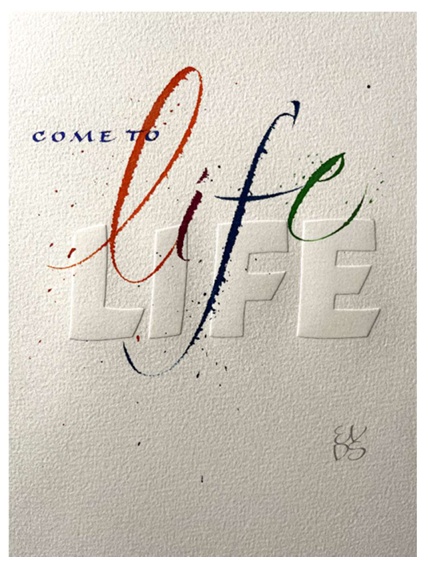
Embossing and its opposite, debossing, are two techniques used to either impress or depress letters and shapes into paper. The 3D-image casts subtle shadows and brings a new dimension to your work. An embossed design can stand alone or be combined with writing or with other media. In this workshop we will look at different ways our embossing and writing can complement, enhance and complete each other to create visually exciting work. The techniques learnt can be used in casual and formal work, from greeting cards to framed pieces.